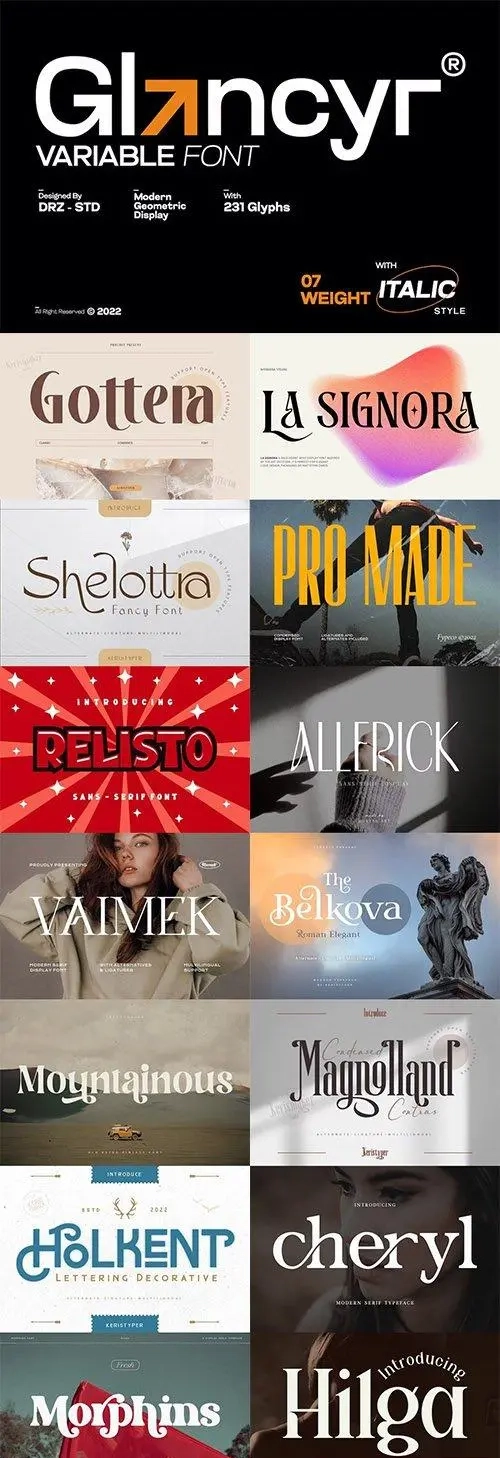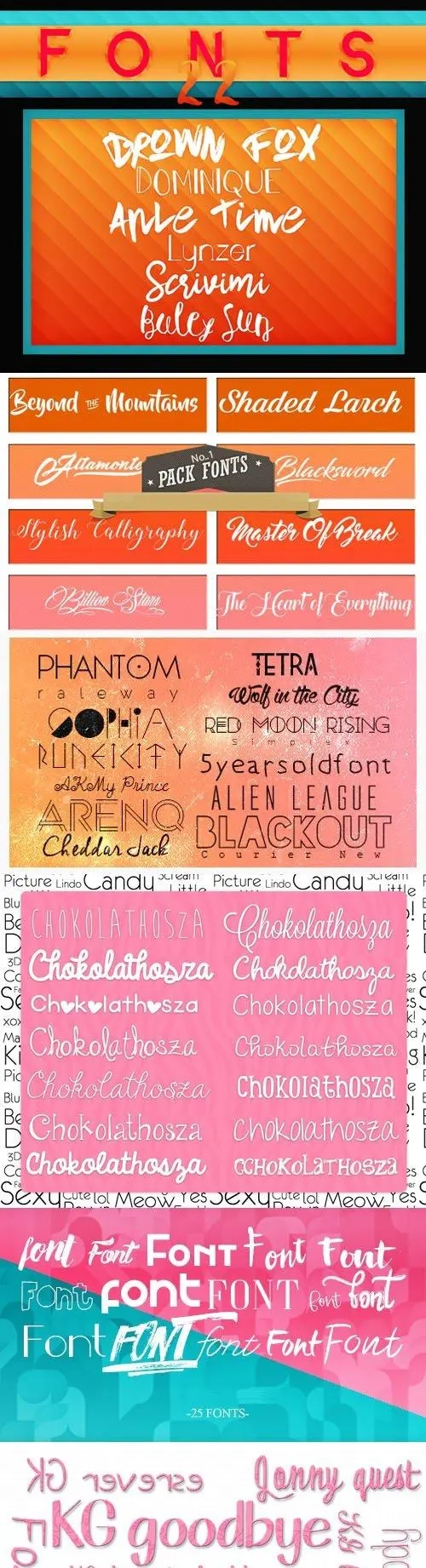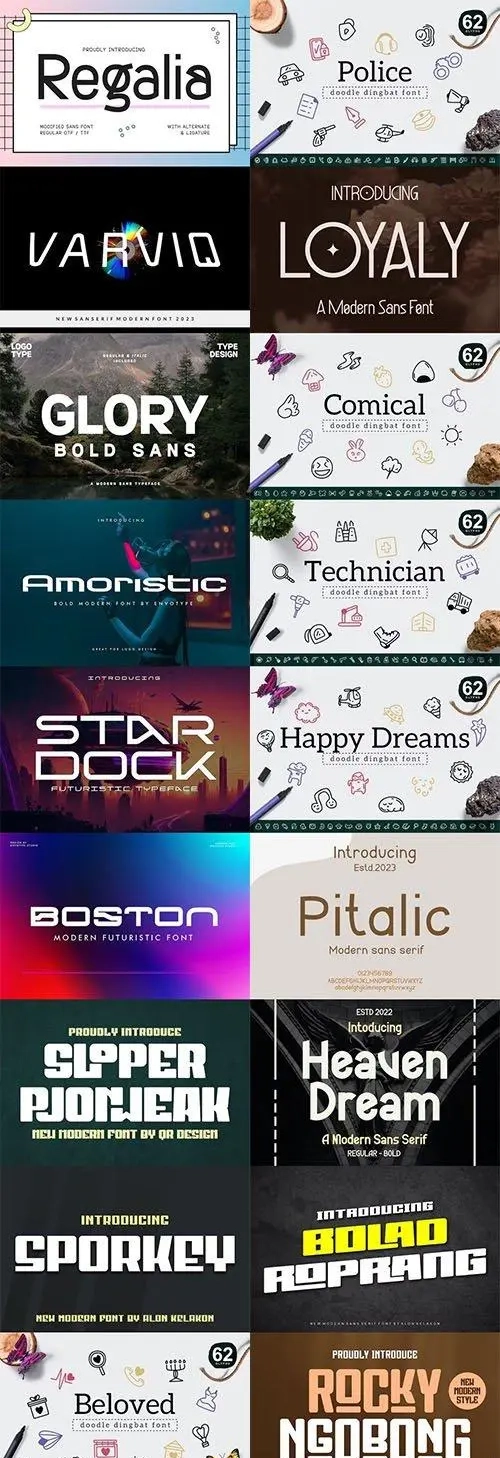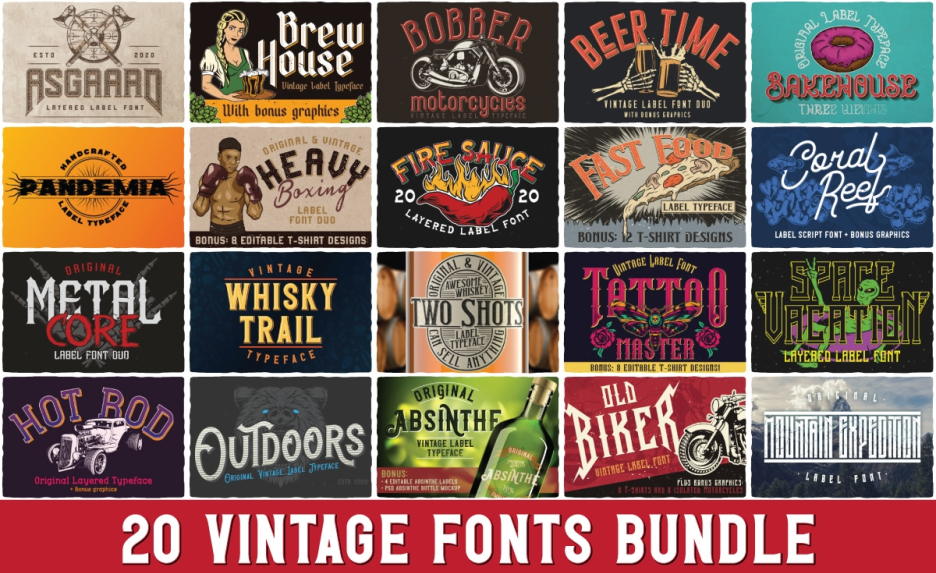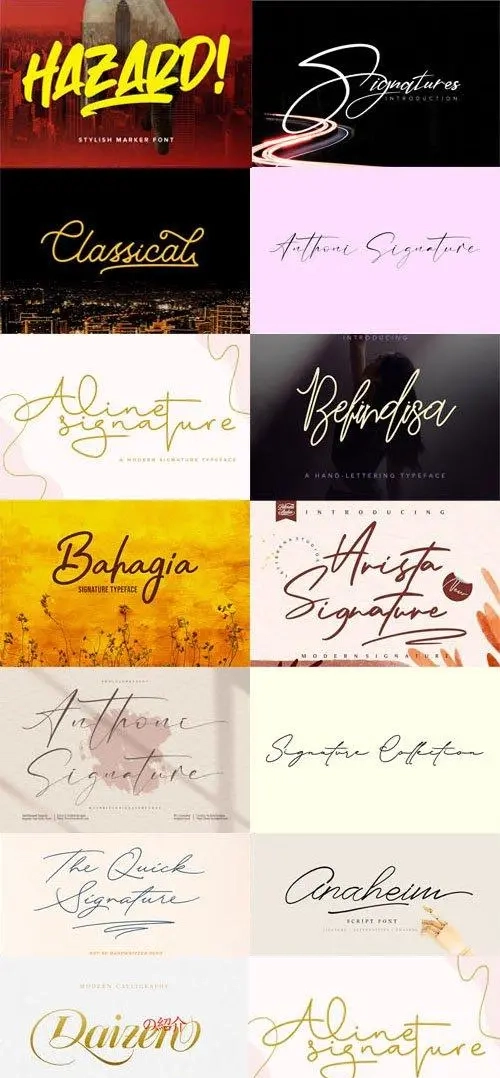
20 Whopping Fonts In
This bundle is an absolute beast! 🦍 With 20 unique styles from elegant serifs to modern sans-serifs, you’ll have the perfect voice for every project. Grab it and never run out of font options again!
20 Vintage Fonts Bundle
Calling all retro lovers! 🕰️ This curated collection brings nostalgic charm to your logos and prints. Perfect for branding that needs a touch of history and soul.
25 Best Signature Fonts
Want to add a personal, handcrafted feel to your work? ✍️ These 25 signature fonts are dripping with elegance and will make your branding look incredibly authentic.
20 Summer & Cartoon Fonts Collection
Sunny vibes only! ☀️ This playful set is perfect for children’s books, party invitations, or any project that needs a burst of fun and color.
20+ Fonts Bundle [Jun-2022] Vol
A versatile mix of serif, sans-serif, script, and display fonts! 🧩 This is your all-in-one solution for diverse design needs, from web to print.
18 Fonts Bundle
Meticulously crafted and ready to use! 💎 This bundle offers a fantastic range of styles with multiple weights, perfect for building a solid typography foundation.
108+ Premium Fonts Collection
This is the big one! 🏆 Over 108 premium fonts covering every style imaginable. If you want to build a massive, professional library in one go, this is it.
15 Fonts Pack
Sometimes you just need a curated, high-quality selection. 🌟 These 15 fonts are versatile and easy to use, making them a great quick-addition to any designer’s toolkit.
150+ Awesome Fonts Collection
With over 150 unique fonts, this collection is an absolute monster for variety! 🤯 You’ll find the perfect typeface for any mood, from formal to funky.
14 Modern Display Sans Serif Fonts Pack
Clean, bold, and ultra-modern! 📐 These sans-serif fonts are perfect for logos and headlines where you need maximum impact and readability.
200+ Blood Brushes Collection
For the horror and fantasy artists out there! 🩸 This massive collection of 200+ brushes brings dramatic, realistic blood effects to your Procreate projects instantly.
Balloon Bunches Set Heart, Circle And Star Shapes
Celebration time! 🎈 These cute balloon bunches in heart, circle, and star shapes are perfect for invitations and party decor.
100 Watercolor Photoshop Brushes
Get that gorgeous, fluid watercolor look without the mess! 🎨 These 100 brushes perfectly mimic real textures and blending, ideal for dreamy illustrations.
Iris Photoshop Brushes
Unleash the beauty of nature! 🌸 These brushes are specially designed for creating stunning floral patterns and delicate textures with incredible detail.
80 Ink Vector Brushes
Add depth and character with authentic ink textures! 🖋️ From bold strokes to fine lines, these 80 vector brushes are perfect for comic art and edgy illustrations.
Artistic Studio-Acrylic Toolkit
Love the thick, bold look of acrylic paint? 🖌️ This toolkit includes brushes, textures, and palettes that replicate traditional canvas art, right on your screen.
Space Brushes
Reach for the stars! 🌌 These Procreate brushes make it easy to paint cosmic landscapes, nebulas, and starry skies with stunning, ethereal effects.
Arrow Head Pattern Brushes & Vector Arrows
Create dynamic paths and guides instantly! ➡️ These arrow pattern brushes are perfect for infographics, banners, and modern geometric designs.
All That Glitters-Vector Brushes
Add some sparkle to your life! ✨ These vector brushes create shimmering, glittery effects and intricate details that instantly upgrade any illustration or typography.
30 Sand Dust Photoshop Stamp Brushes
Bring the desert to your canvas! 🏜️ These high-resolution stamp brushes are perfect for adding realistic sand, dust, and grunge textures to your landscapes and backgrounds.